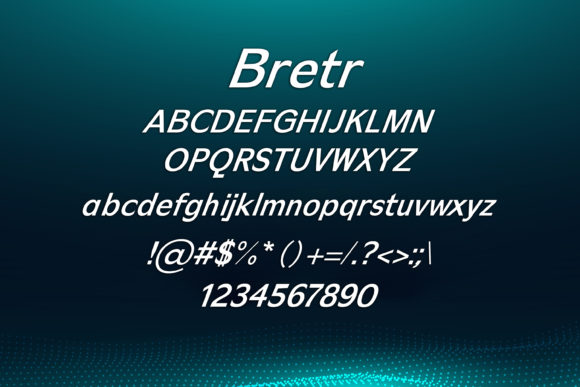
Discovering the Perfect Font for Modern Designs
Remember that moment when you’re brainstorming ideas for a new project, and you stumble upon the perfect font that makes everything click? For designers, finding the right font can be the difference between a good design and a great one. It’s like the missing piece of a puzzle that brings everything together.
Enter Bretr Font, a sans serif font that draws inspiration from traditional sign painting with a modern twist. This clean and minimal typeface is perfect for modern and contemporary designs, from logos and headlines to business cards and t-shirts. Whether you’re working on a branding project or a digital campaign, Bretr Font is a valuable asset to have in your design arsenal.
With its versatility and sleek design, Bretr Font is a must-have for designers looking to elevate their work and make a lasting impression. By incorporating Bretr Font into your designs, you’ll be able to create clean, modern, and professional-looking materials that stand out in a crowded market.
Bretr Font Key Features
- Unique Characteristics: The Bretr Font features a unique blend of modern and vintage elements, with a distinctive geometric shape and a wide range of ligatures and alternates.
- Font Weight: Bretr Font offers 8 different font weights, ranging from Light to ExtraBold, allowing designers to create a wide range of visual effects and styles.
Review of Bretr Font
Overall, I think Bretr Font is a decent addition to any designer’s toolkit. Here are some of its strengths and weaknesses:
- Unique and modern design: Bretr Font has a distinctive look that can help your designs stand out from the crowd.
- High-quality glyphs: The font includes a wide range of glyphs, including some unusual ones that can add interest to your text.
- Limited character set: While Bretr Font includes a wide range of glyphs, it’s not a complete Unicode font, which can be a limitation for designers who need to work with non-English languages.
- Not as legible at small sizes: Bretr Font can be difficult to read at small sizes, which can make it less suitable for use in body text.
- No bold or italic variants: Bretr Font only comes in a single weight, which can limit its versatility.
Overall, I think Bretr Font is a great choice for designers who want to add a unique touch to their work. However, it may not be the best choice for designers who need a more versatile or legible font.
Getting the Most Out of Bretr Font
To get the most out of Bretr Font, experiment with different font sizes, colors, and combinations to find the perfect look for your design. You can also pair Bretr Font with other fonts to create a unique and eye-catching design.
Bretr Font is commonly used for:
- Logo designs
- Branding materials
- Web design
- Print design